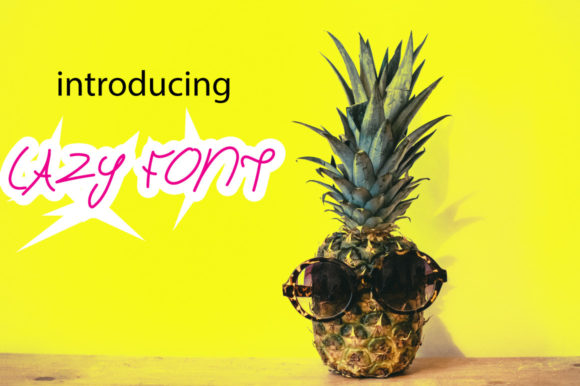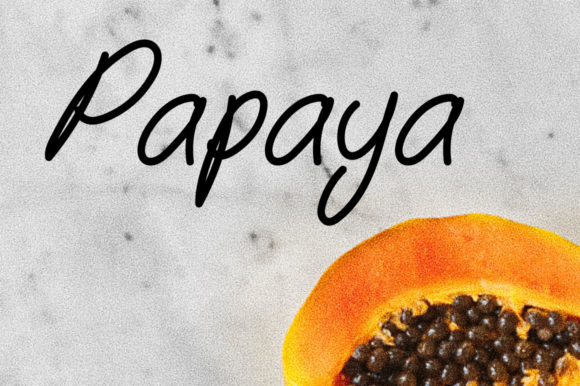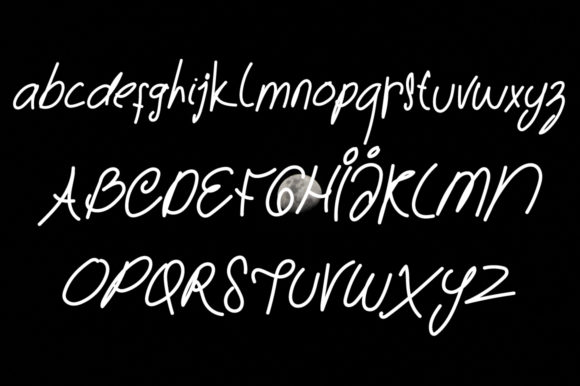
Lazy Font
About Lazy Font
“Curved Pen” sounds like a versatile and charming handwritten font with a soft touch, perfect for a variety of design projects. Let’s explore its features and potential applications:
**Handwritten Charm:**
Being described as a handwritten font suggests that Curved Pen carries the charm and personal touch of hand-drawn elements. This can bring a warm and inviting feel to your designs, making them more relatable and engaging.
**Soft Font:**
The mention of a soft font indicates a gentle and smooth aesthetic. This softness can contribute to a friendly and approachable visual experience, making it suitable for a range of projects.
**Fun and Romantic Touch:**
The promise of adding a fun and romantic touch implies that Curved Pen can evoke specific emotions in your designs. This makes it well-suited for projects where a playful or romantic atmosphere is desired, such as on t-shirts, award certificates, or cup labels.
**Versatility Across Projects:**
The statement that Curved Pen is suitable for t-shirts, banners, shop names, movie titles, business cards, invitation cards, and more highlights its versatility. This font appears to be adaptable to a wide array of design contexts, making it a valuable tool for designers working on diverse projects.
**Applications:**
The specific mention of t-shirts, car decorations, award certificates, cup labels, banners, shop names, movie titles, business cards, and invitation cards suggests that Curved Pen is versatile enough for both digital and physical applications.
Incorporating Curved Pen into your designs could bring a sense of playfulness and romance. Whether you’re working on branding, promotional materials, or personal projects, this font seems ready to enhance the overall visual appeal with its unique and soft handwritten style.
Experiment with different applications and settings to fully explore the possibilities that Curved Pen offers. The flexibility mentioned suggests that it can adapt seamlessly to various design needs, providing a soft and charming touch to your creative endeavors.